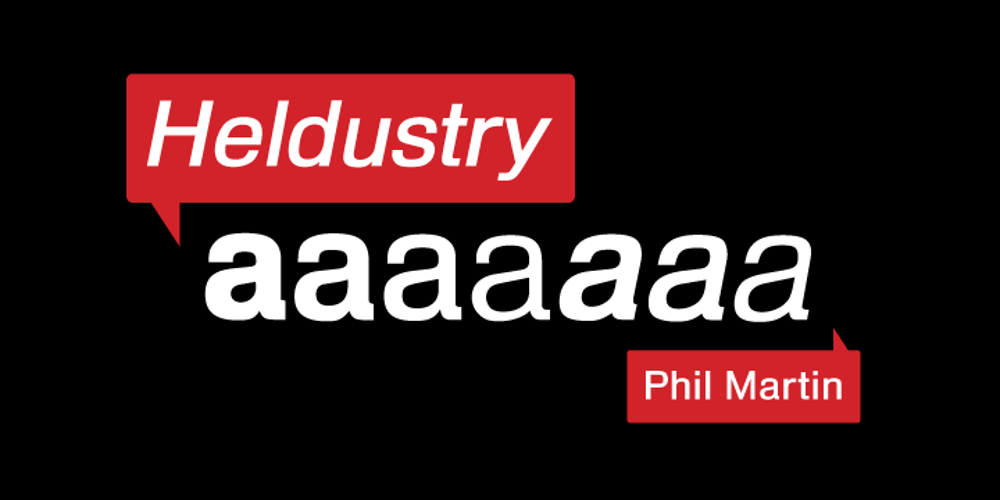
Heldustry Font Family was designed by Phil Martin and published by URW Type Foundry. Heldustry contains 7 styles and family package options. Heldustry is a sans serif design with letterforms partway between Helvetica and Eurostile. The Heldustry font family has a large x-height and wide characters, making it ideal for situations where there is not much copy but pages must be filled.